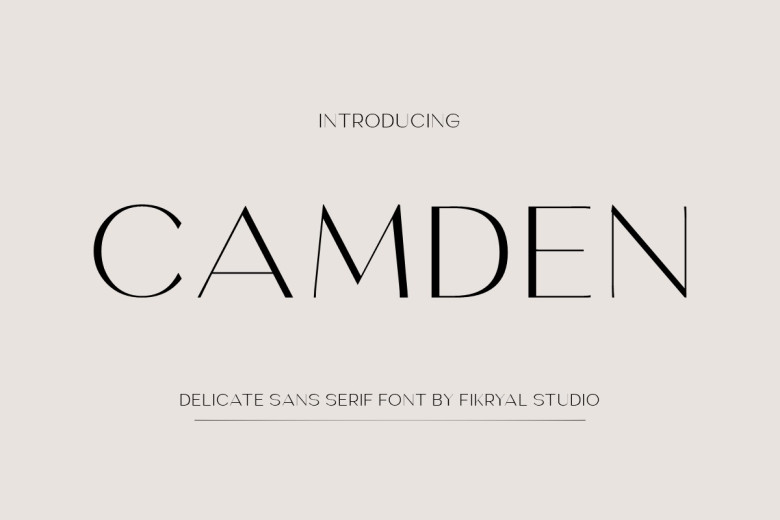
Camden Font
Camden is an elegant sans-serif font exuding class thanks to its sophisticated all-caps design, was released this month. Its classy letterforms add an air of sophistication that enhances any work, while multilingualism provides flexibility across different languages and typographic demands.
Camden font can add timeless elegance with international appeal when designing for branding, editorial content, or digital media projects.
Camden Sans Serif Font